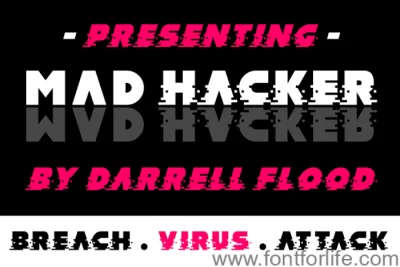
Mad Hacker Font
Mad Hacker Font is perfect for tech startup branding, cybersecurity marketing, coding bootcamp materials, hacker conference posters, gaming interfaces, digital technology blogs, software development logos, IT company branding, futuristic design projects, and edgy tech content that celebrates programming culture and digital innovation with rebellious energy.
This font is exciting because it captures the raw intensity and underground spirit of hacker culture through bold, technical letterforms that feel both rebellious and intelligent. The distinctive character design embodies the creative chaos and problem-solving brilliance of coding communities, making it ideal for projects that need to communicate technical expertise, digital disruption, and the fearless innovation that drives technology forward.
The Mad Hacker Font family typically includes uppercase and lowercase characters, numerals, punctuation marks, special coding symbols, technical glyphs, and stylistic variations that enable designers to create authentic tech-inspired compositions with genuine programmer credibility.
Whether you're designing for tech companies, creating coding education materials, or developing marketing campaigns for digital innovation businesses that value technical expertise and creative disruption, Mad Hacker Font provides the perfect typographic voice for digital rebellion. Its edgy character and tech-savvy styling make every project feel more authentic and culturally connected, ensuring your designs resonate with developer communities while communicating intelligence, innovation, and the unstoppable creative energy of technology culture.